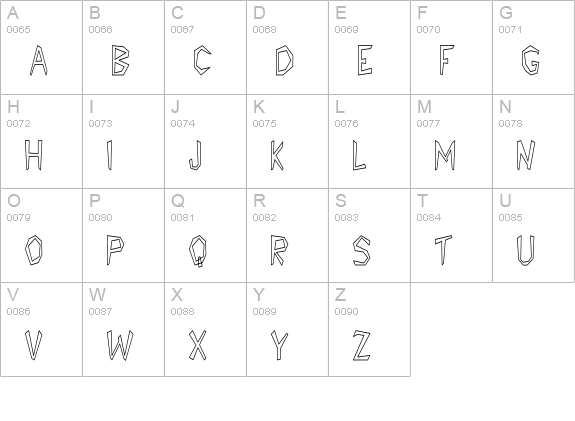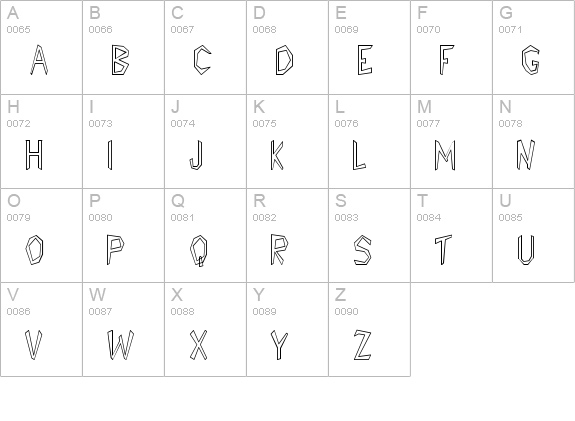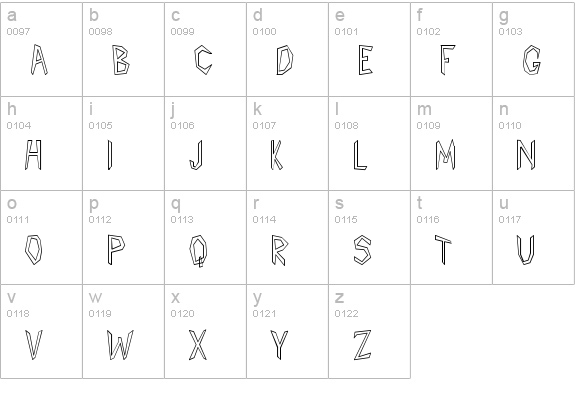
PCCatawanHC Font Details
Introducing PCCatawanHC font, a captivating and versatile typeface that will elevate any design project to new heights. With its unique blend of modernity and sophistication, this font is sure to make a lasting impression. PCCatawanHC offers a wide range of characters, from elegant uppercase letters to stylish lowercase glyphs, allowing you to create stunning typography that stands out from the crowd. Its clean lines and balanced proportions make it suitable for a variety of design applications, including logos, branding, packaging, posters, and more. What sets PCCatawanHC apart is not only its exquisite design but also its accessibility. This font is available for free download exclusively at FontsMarket.com, making it easily accessible to designers and creatives worldwide. Now, you can add this remarkable typeface to your collection without breaking the bank. Whether you're a seasoned professional or just starting out in the design world, PCCatawanHC font is a must-have addition to your toolkit. Its versatility, elegance, and the fact that it is freely available to download at FontsMarket.com, make it the perfect choice for all your creative endeavors. Don't miss out on the opportunity to elevate your designs with this exceptional font. Download PCCatawanHC today and let your creativity soar!